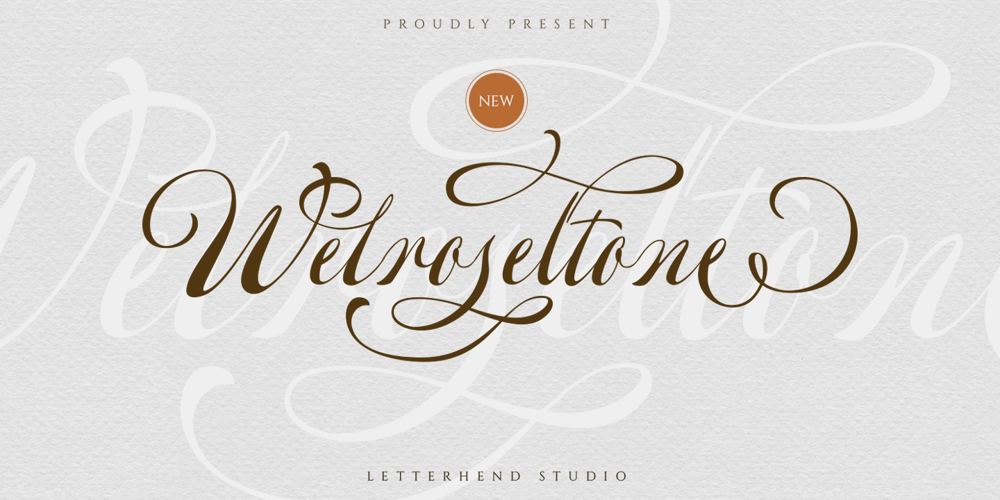
Welroseltone
Welroseltone font
Welroseltone Font Family was designed by Hendry Juanda and published by Letterhend. Welroseltone contains 1 styles and family package options. Introducing, Welroseltone – a script typeface with beautiful unique swashes. This type of font perfectly made to be applied especially in logo, and the other various formal forms such as invitations, labels, logos, magazines, books, greeting / wedding cards, packaging, fashion, make up, stationery, novels, labels or any type of advertising purpose.Features : uppercase & lowercase numbers and punctuation multilingual alternates and swashes PUA encoded We highly recommend using a program that supports OpenType features and Glyphs panels like many of Adobe apps and Corel Draw, so you can see and access all Glyph variations.